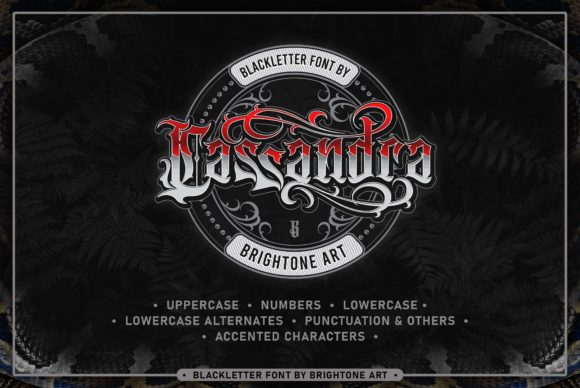
Introducing Cassandra Font, the Bold and Alluring Blackletter Masterpiece
In the realm of captivating typography, Cassandra Font reigns supreme, a bold and authentic blackletter font crafted to turn heads and leave a lasting impression. This assertive font is a stunning fusion of classic aesthetics and contemporary flair, ideal for formal designs that demand attention.
Unleash the Power of Your Designs with Cassandra Font
With Cassandra Font, transform your designs into visual masterpieces that radiate confidence and sophistication. Its striking letterforms, inspired by the rich history of blackletter calligraphy, bring a touch of intrigue and mystery to your creative endeavors. Let Cassandra Font elevate your logos, posters, flyers, and social media graphics to new heights of visual appeal.
Unlock Your Inner Artist with Cassandra Font
Cassandra Font is not merely a font; it's a gateway to unleash your inner artist. Its bold, commanding presence is perfect for creating eye-catching headlines, stunning logos, and captivating social media posts that resonate with your audience. Imagine the impact of a tattoo number design rendered in Cassandra Font, its intricate details and bold strokes leaving an indelible mark on viewers' minds.
Immerse Yourself in the World of Cassandra Font
Cassandra Font is meticulously crafted to provide a seamless and enjoyable user experience. Its extensive character set, including uppercase, lowercase, numbers, and symbols, ensures versatility and adaptability. Experience the ease of use as Cassandra Font seamlessly integrates with your favorite design software, allowing you to effortlessly bring your creative visions to life.